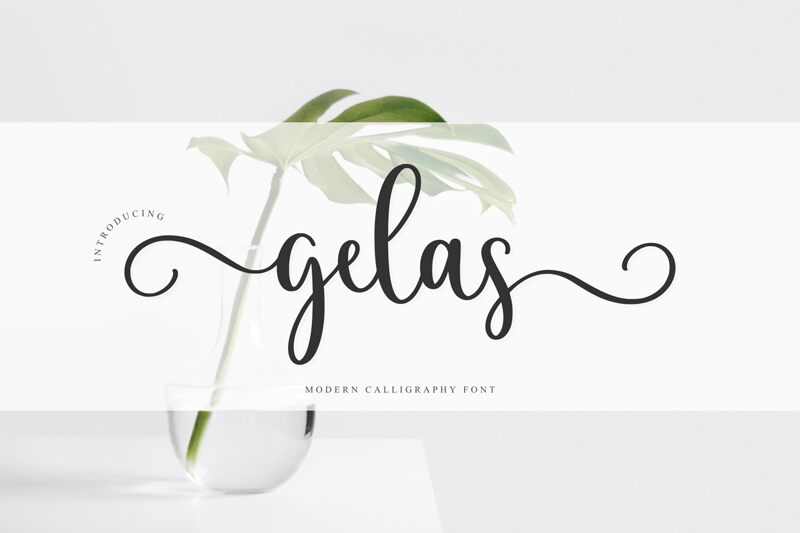
Gelas, crafted by the talented Makashi, embodies the personal touch of handwritten artistry with its semi-light weight that offers an airy elegance. This font's fluidity is reminiscent of swift pen strokes, delivering a balance of sophistication and casual charm. Its sweeping curves and modest line variation evoke a sense of intimacy and warmth, making Gelas an excellent choice for invitations, branding, and editorial design where a human touch is desired.
The font's aesthetic appeal lies in its organic structure-perfect for conveying authenticity. Whether applied to marketing materials or personal projects, Gelas lends itself to designs that require a blend of approachability and flair without compromising on readability. Embrace Gelas for your next creative endeavor and let its unique style narrate your story with grace.